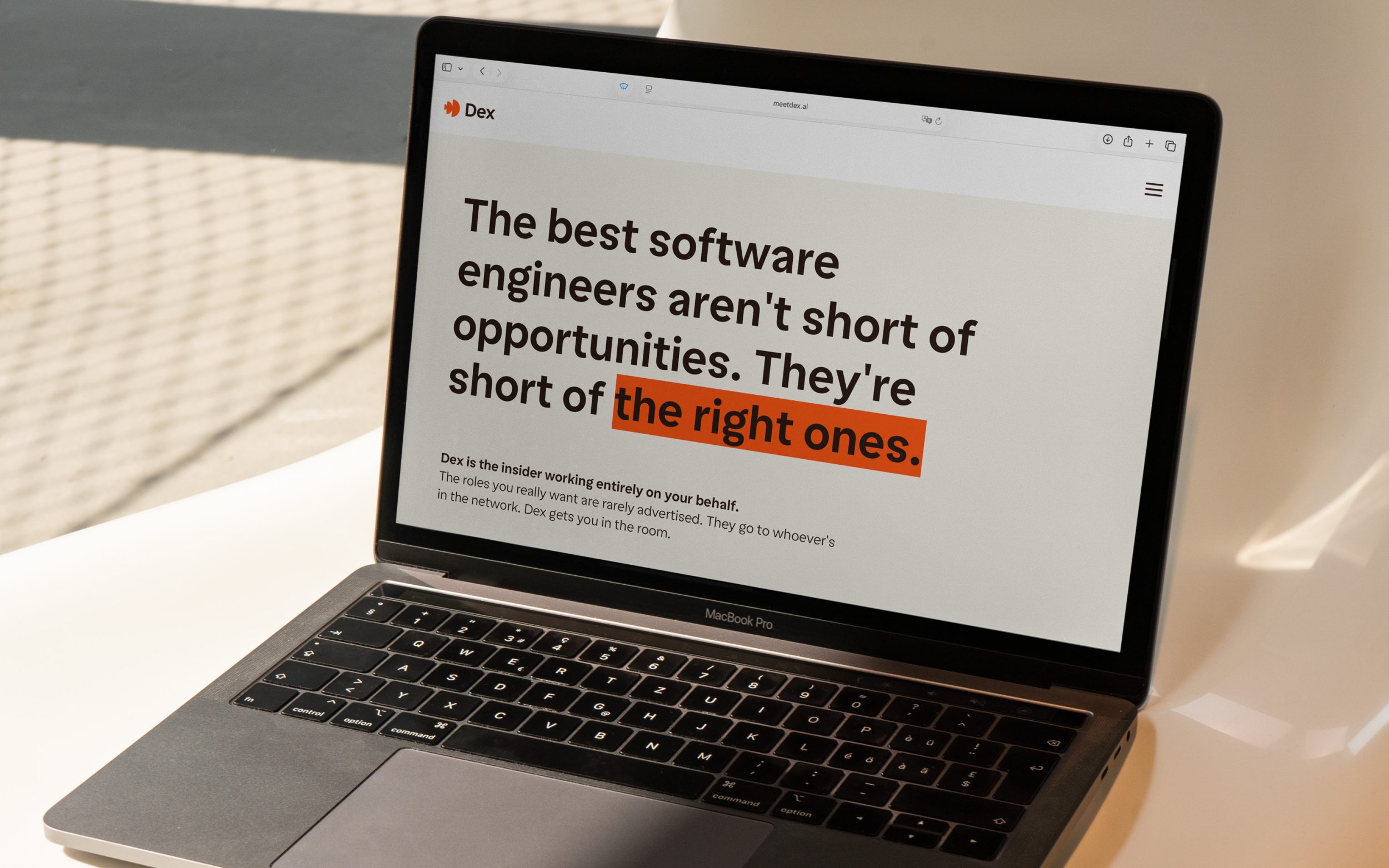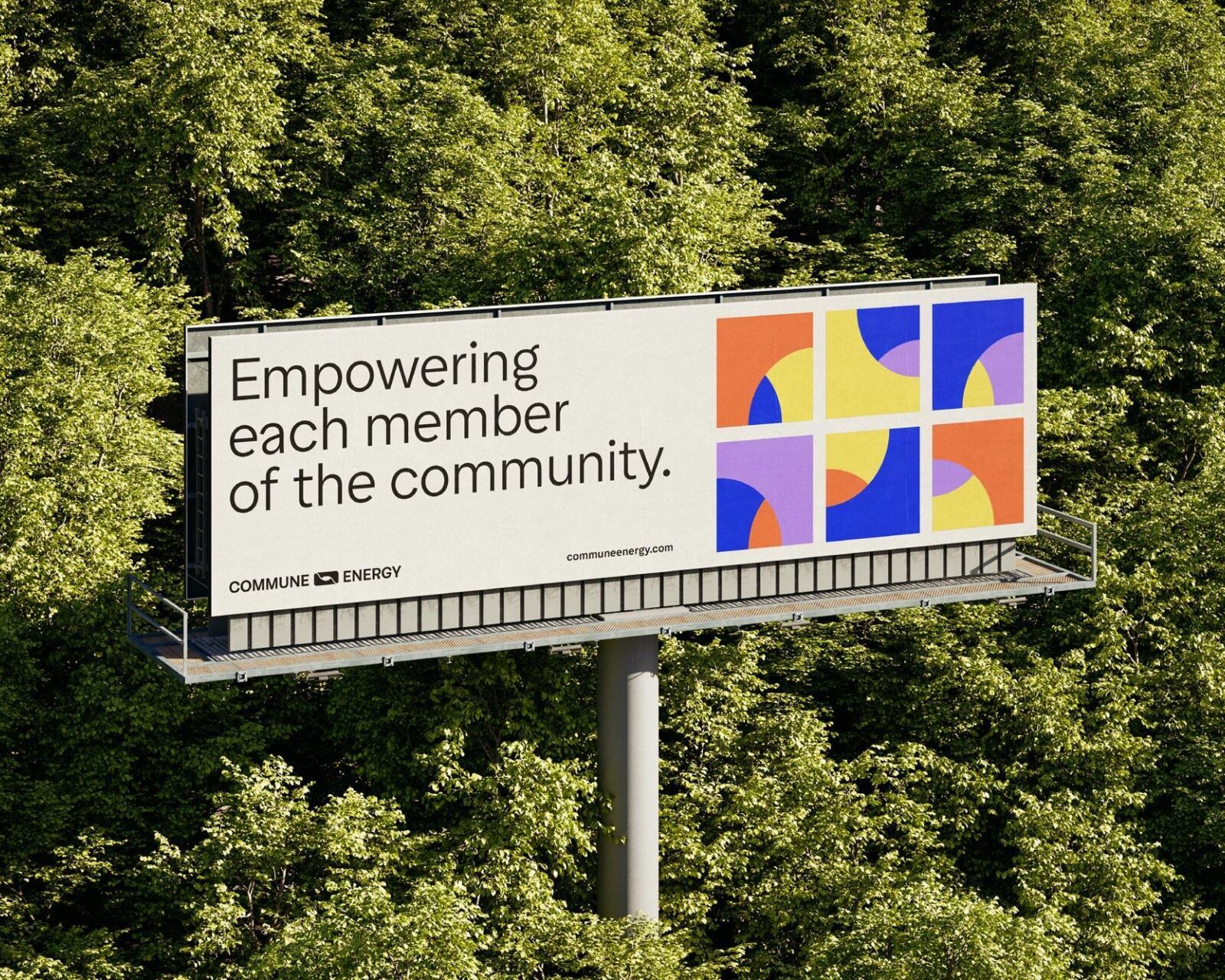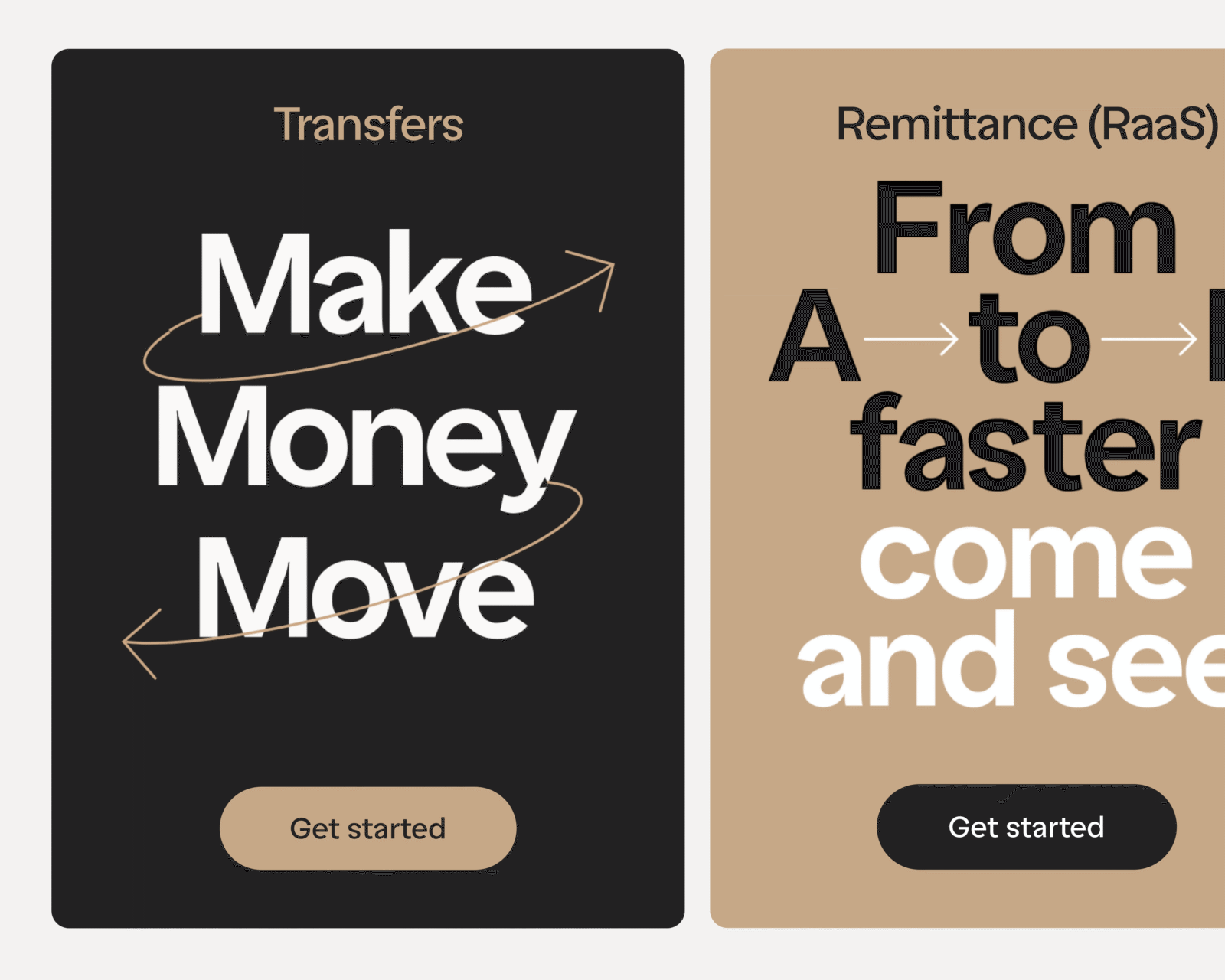
Easy Grotesk
an ultra friendly typeface
Easy Grotesk? It’s confident and optimistic. It’s fresh, friendly and combines the conventional with the surprising; trust and familiarity with a visual twist.
Easy Grotesk brings together two opposing aesthetics. There’s the easy-going typographic texture on the one hand, and quirky character on the other. Useful and functional, this cheerful helper is carefree but not careless. It’s Easy, not lazy!
Expressive gestures are key to Easy Grotesk’s personality. It may follow a standard neo-grotesque model, but it plays with the principles. Where, ordinarily, the lower parts of a letter are a little larger to make it feel more stable, Easy is dynamic: the top heavy, almost upside down s and signature a are only a few of the details that bring playful character to typography.
Easy Grotesk’s unmistakable appearance pulls the reader closer. While its proportions give the typeface distinction and impact at display sizes, they’re subtle at smaller ones. Level-headed proportions, ample body, and spontaneous detailing delivers content with joie de vivre. Originally designed for a tech startup, its seven styles, matching italics and relaxed attitude can organise complex information and make it approachable. Easy.
Like most TypeMates fonts, Easy Grotesk covers almost all the languages that use the Latin alphabet and is packed with plenty of typographic features. Along with Tabular Lining and Oldstyle Figures, its OpenType features include a wide range of alternates (a simplified a and g, a distinctive G and k, and a tailed l for extra legibility) and plenty of typographic extras: arrows, case-sensitive forms, and symbols. On top of that, the Variable Font implementation of Easy Grotesk opens up additional ways to create motion graphics.